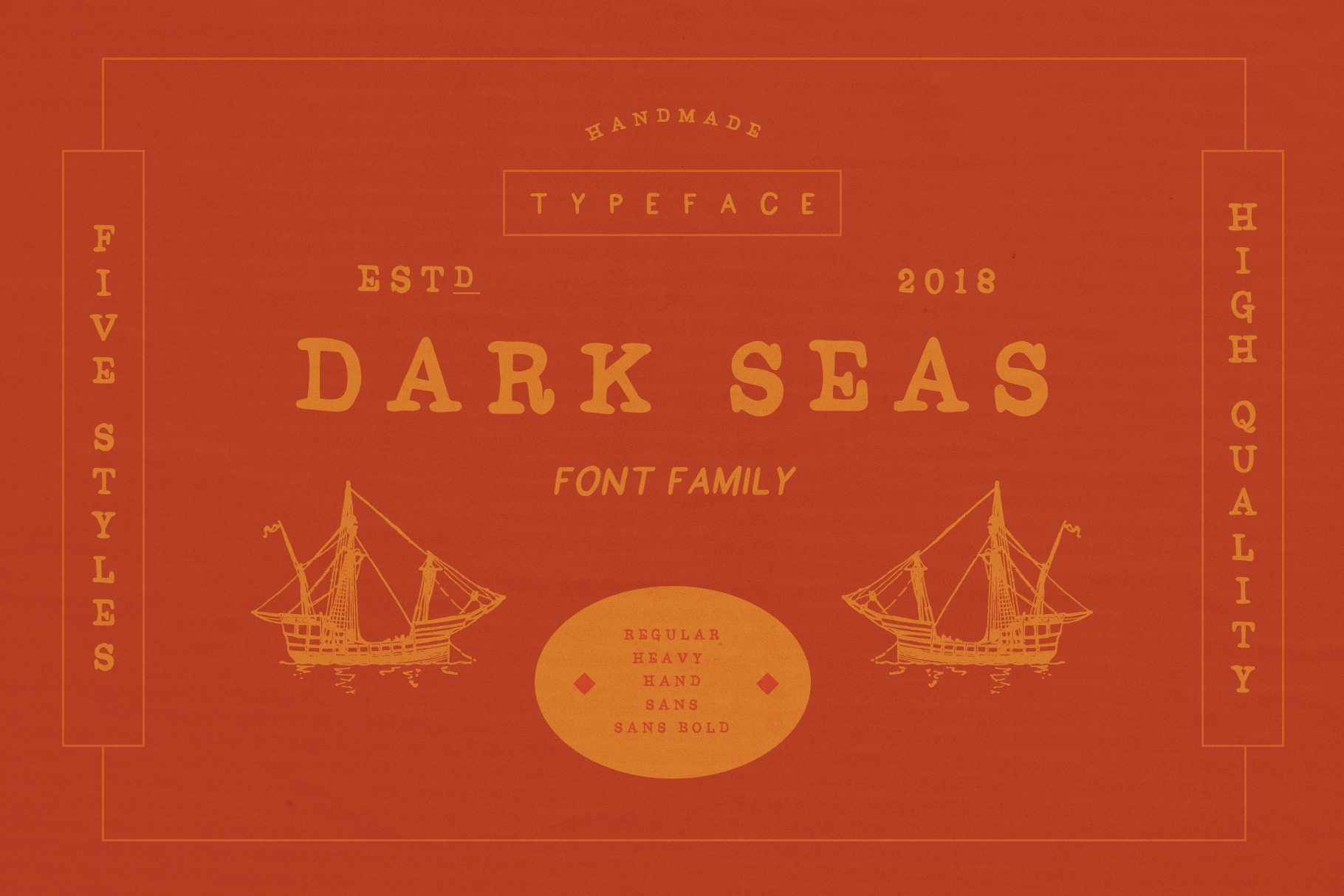
Dark Seas Font Family
Dark Seas A hand drawn font family
This font comes with five styles that pair seamlessly together, creating the ultimate tool to give your designs clarity, style, and impact.